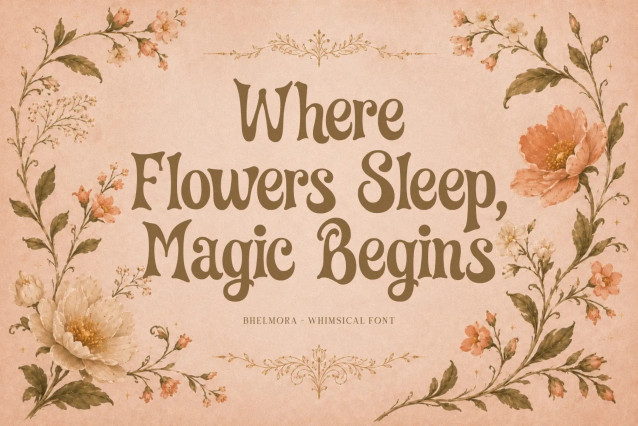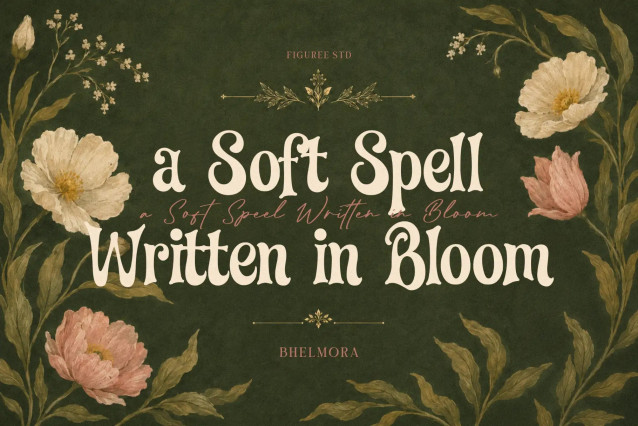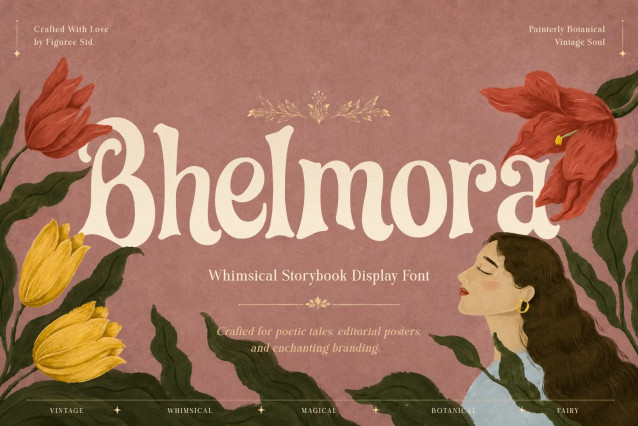
Bhelmora Whimsical Display Font
Bhelmora Whimsical Display Font is designed for creatives who want typography with personality, movement, and a lighthearted visual mood. It brings a charming display style to projects that need to feel expressive without losing clarity. Whether you are building a cheerful brand identity, designing product packaging, creating poster artwork, or preparing social media graphics, Bhelmora gives your words a more memorable visual presence.
This font is a strong choice for designers, brand owners, crafters, content creators, packaging designers, and digital product sellers who want their typography to feel friendly, imaginative, and distinctive. It works beautifully when the design needs to look warm, creative, and approachable rather than plain or corporate.
Bhelmora is especially useful for headline-focused layouts. Use it for titles, logo text, short phrases, product names, sticker designs, greeting cards, quote graphics, and other display typography where the lettering becomes part of the visual story.